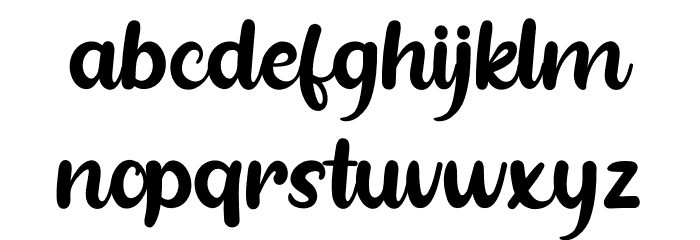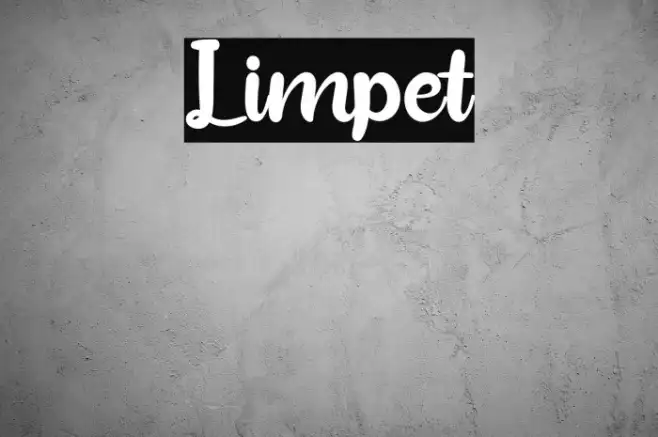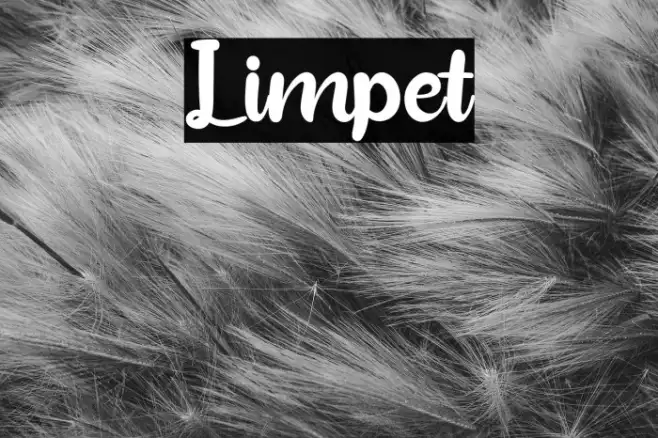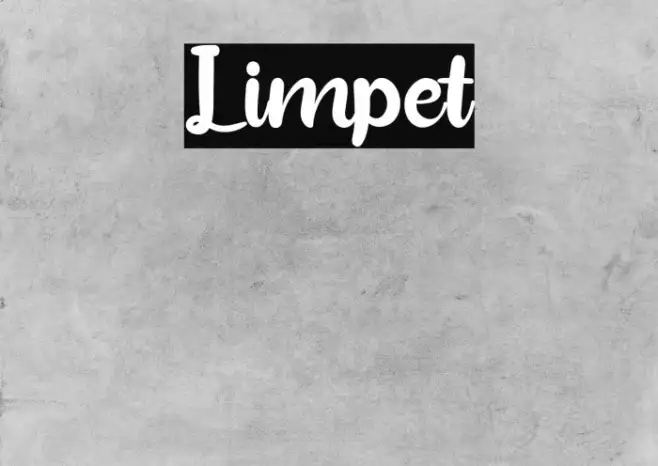
Limpet Font
This font features a playful and casual script style, characterized by its smooth, flowing curves and slightly irregular strokes. The uppercase letters are bold and prominent, while the lowercase letters maintain a consistent, rounded appearance. The font exhibits a hand-drawn aesthetic, giving it a personal and approachable feel. The characters are well-spaced, ensuring readability, and the overall design is cohesive, making it suitable for a variety of creative applications. The absence of sharp edges and the presence of gentle curves contribute to its friendly and inviting nature.
A playful and casual script font with smooth, flowing curves and a hand-drawn aesthetic.
- Proposed Projects: Ideal for greeting cards, invitations, personal branding, and creative projects that require a friendly touch.
- Overall Style: Casual
- Use Case: Logos, Headlines, Creative projects